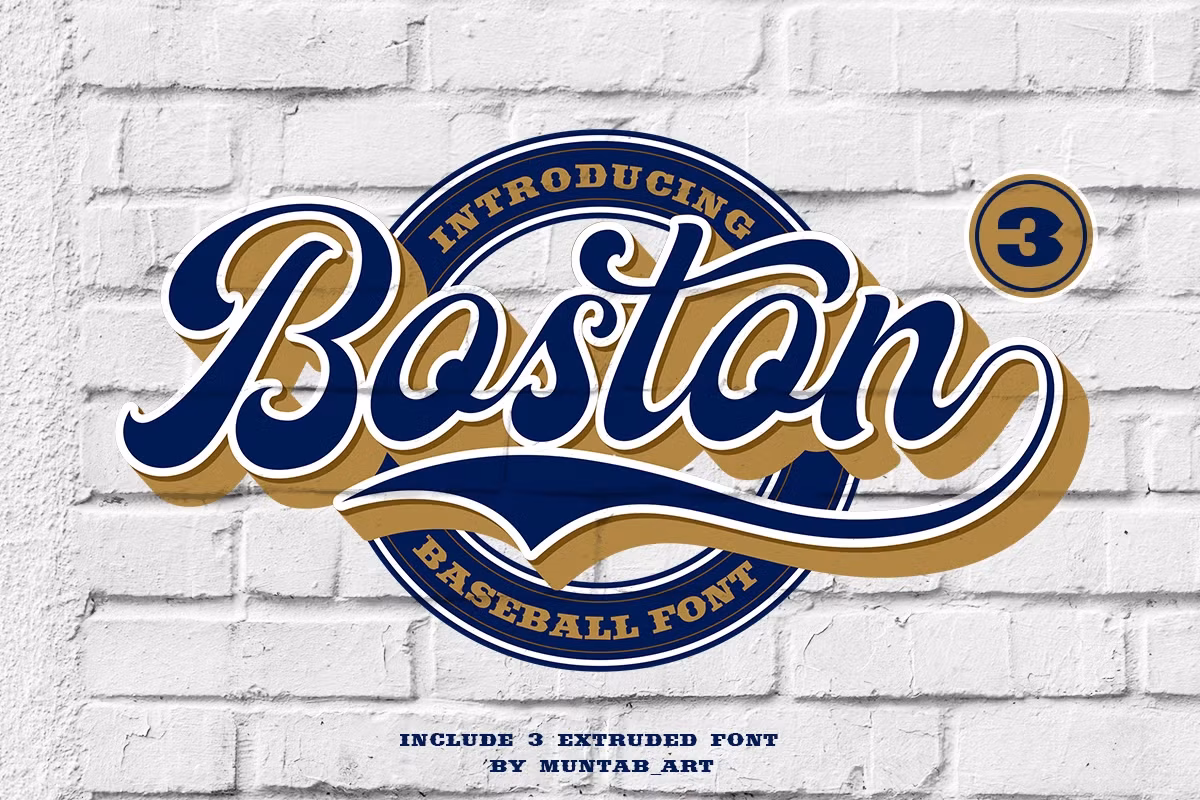
Boston | Baseball Script Font Free Download brings the classic spirit of American baseball right into your design projects. With its dynamic curves and bold script style, this font is perfect for sports logos, apparel branding, vintage posters, and eye-catching headlines. Whether you're designing a retro team emblem or adding flair to merchandise, Boston | Baseball Script delivers that home-run energy your typography needs.
The font offers clean readability while maintaining its vintage charm, making it versatile for both digital and print use. Don’t miss the opportunity to explore this timeless typeface that captures the heartbeat of the ballpark.